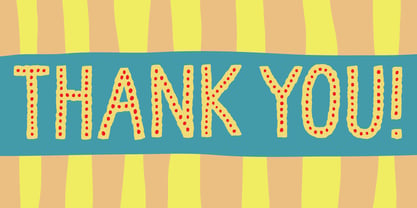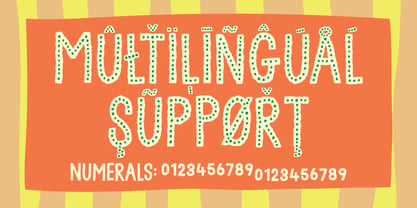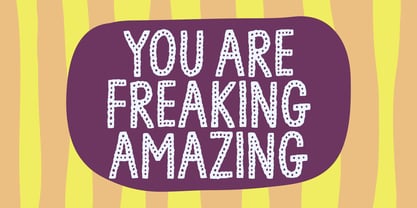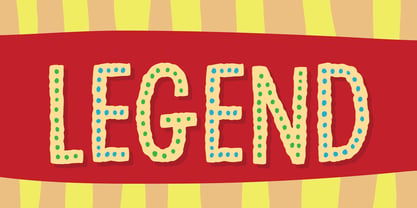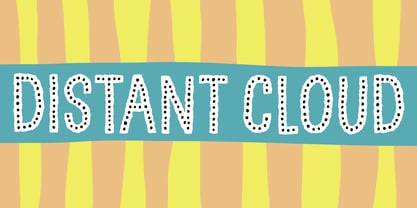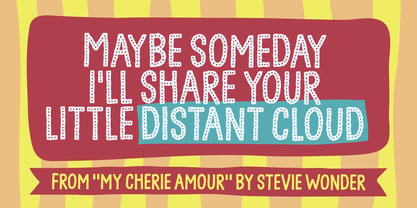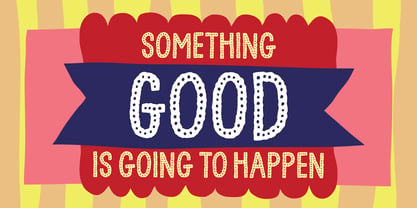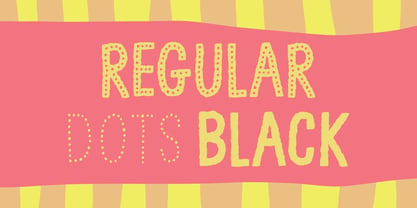
Distant Cloud
by PizzaDude.dk
The Distant Cloud Font Family was designed by Jakob Fischer and published by PizzaDude.dk. Distant Cloud contains 3 styles and family package options. More about this family
Distant Cloud is 100% handmade. Even the thousands of dots in the Regular and Dots version are done by hand, It took like forever, and left my hand in a cramp! You have to sets of letters to choose from: Upper- and lowercase. It could be a good idea to switch between these two, if you type words with repeating letters, or the same letters repeating in words. You may even want to play around with the 3 layers, for nice effects! Personally I’d say that this font goes well with anything that needs an organic, handmade and slightly rugged look. But due to the legibility, Distant Cloud is useful for even more things - it’s up to you! Enjoy!
Designers: Jakob Fischer
Foundry: PizzaDude.dk